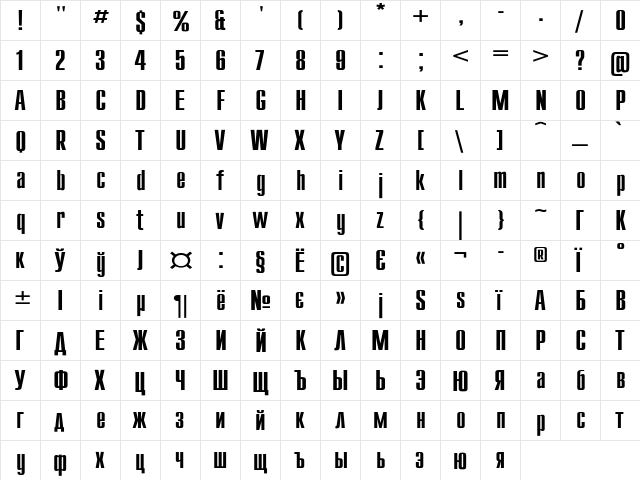
Compact Wd Regular Font Preview
Compact Wd Regular
Compact Wd Regular Font Details
Design Context for Compact Wd Typeface
Compact Wd takes a measured approach to typography — its balanced proportions and neutral character make it a reliable workhorse for both digital and print work. Its narrow stance lets it pack a punch even in space-constrained designs.